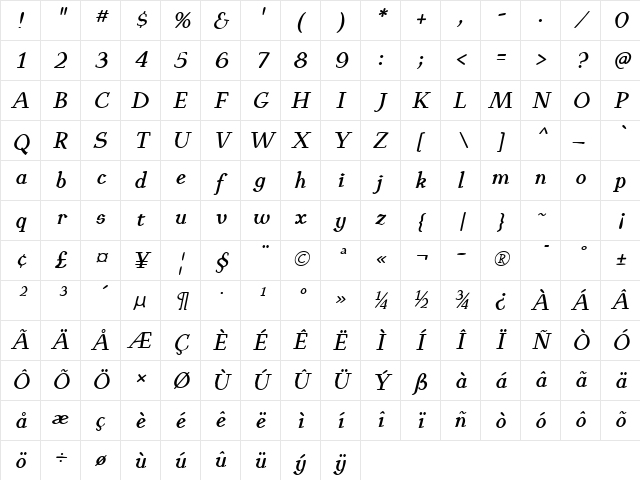
EuroikaKamp BoldItalic
Design Context for EuroikaKamp
EuroikaKamp is a composed and adaptable typeface that performs quietly and consistently across a wide range of design contexts. The slanted form adds forward momentum and visual energy. Its bold stroke weight gives it real presence on the page.
Pro Tip: Use EuroikaKamp for emphasis, pull quotes, and subheadings where its slanted energy can add rhythm to the layout.